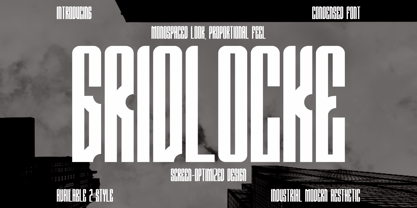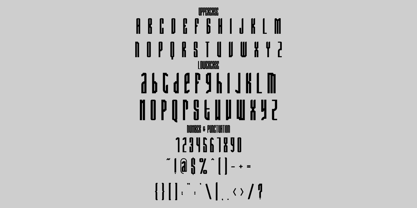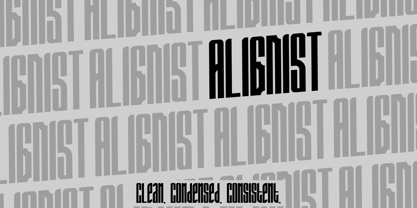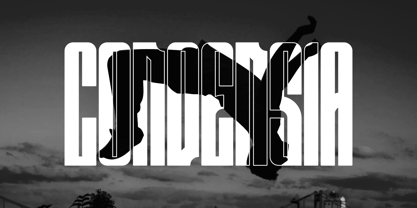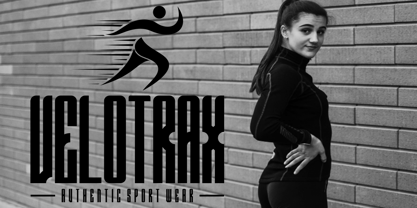
Grid Locke
by Shanaf
The Grid Locke Font Family was designed by Yesie Erma Yunita and published by Shanaf. Grid Locke contains 2 styles and family package options. More about this family
Grid Locke Condensed Font is a bold display typeface built for impact and modern clarity. Each letter is designed with extreme height and condensed proportions, giving it an industrial yet elegant appearance. The font’s sharp vertical structure delivers a monospaced feel while retaining proportional balance, making it both versatile and striking. With a sleek design optimized for screens, it commands attention in digital layouts and print media alike. Its geometric rhythm and clean edges ensure legibility without sacrificing style, making it ideal for projects that demand bold statements.
Perfect for modern branding, fashion labels, packaging, or editorial layouts, Grid Locke creates a sense of authority and sophistication. It works seamlessly in posters, magazine titles, business identities, and even cinematic designs. The condensed form allows for maximum word density while keeping compositions sharp and powerful. Whether you’re designing a logo, headline, or cover, Grid Locke Condensed Font injects a strong visual identity into your creative work, combining elegance with industrial strength.
Designers: Yesie Erma Yunita
Foundry: Shanaf